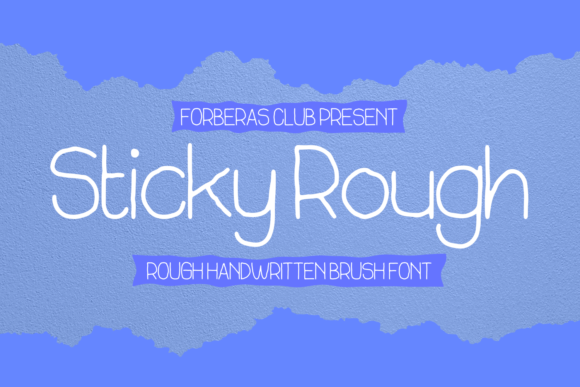
Step into a whimsical world of boundless creativity with Sticky Rough, the enchanting script font that melts hearts and ignites imagination. Its playful curves and delicate strokes dance across your designs, captivating every eye with their undeniable charm.
For those seeking a touch of sweetness in their digital creations, Sticky Rough is your go-to companion. Its endearing style, inspired by the innocence of childhood, evokes a sense of warmth and nostalgia that will make your designs irresistible.
With Sticky Rough, the possibilities are as endless as the dreams of a wide-eyed child. Craft captivating logos that evoke a sense of playfulness and wonder. Design enchanting invitations that transport guests to a magical realm. Create personalized stationery that reflects your unique personality, adding a touch of whimsy to every correspondence.
This versatile font is a treasure for designers of all levels. Its adaptability knows no bounds, lending itself seamlessly to a myriad of projects. Whether you're a seasoned pro or just starting your creative journey, Sticky Rough will empower you to unleash your imagination and craft designs that leave a lasting impression.
So, dear designers, embrace the magic of Sticky Rough and let your creativity soar. Its enchanting charm will captivate hearts, ignite smiles, and transform your designs into captivating masterpieces.